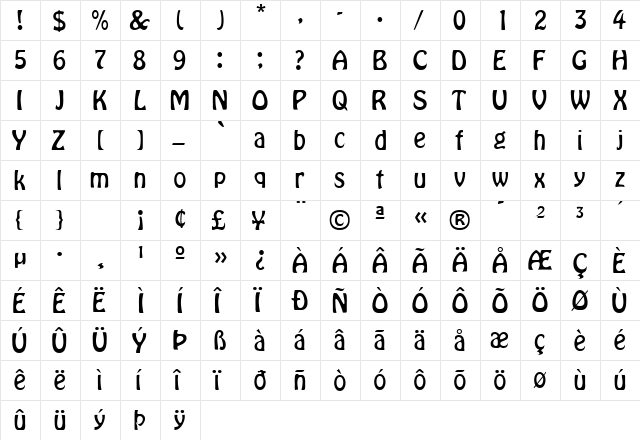
BoffoLightSSK Regular
Design Context for BoffoLightSSK Typeface
BoffoLightSSK takes a measured approach to typography — its balanced proportions and neutral character make it a reliable workhorse for both digital and print work. Its slender proportions lend an understated elegance to any composition.